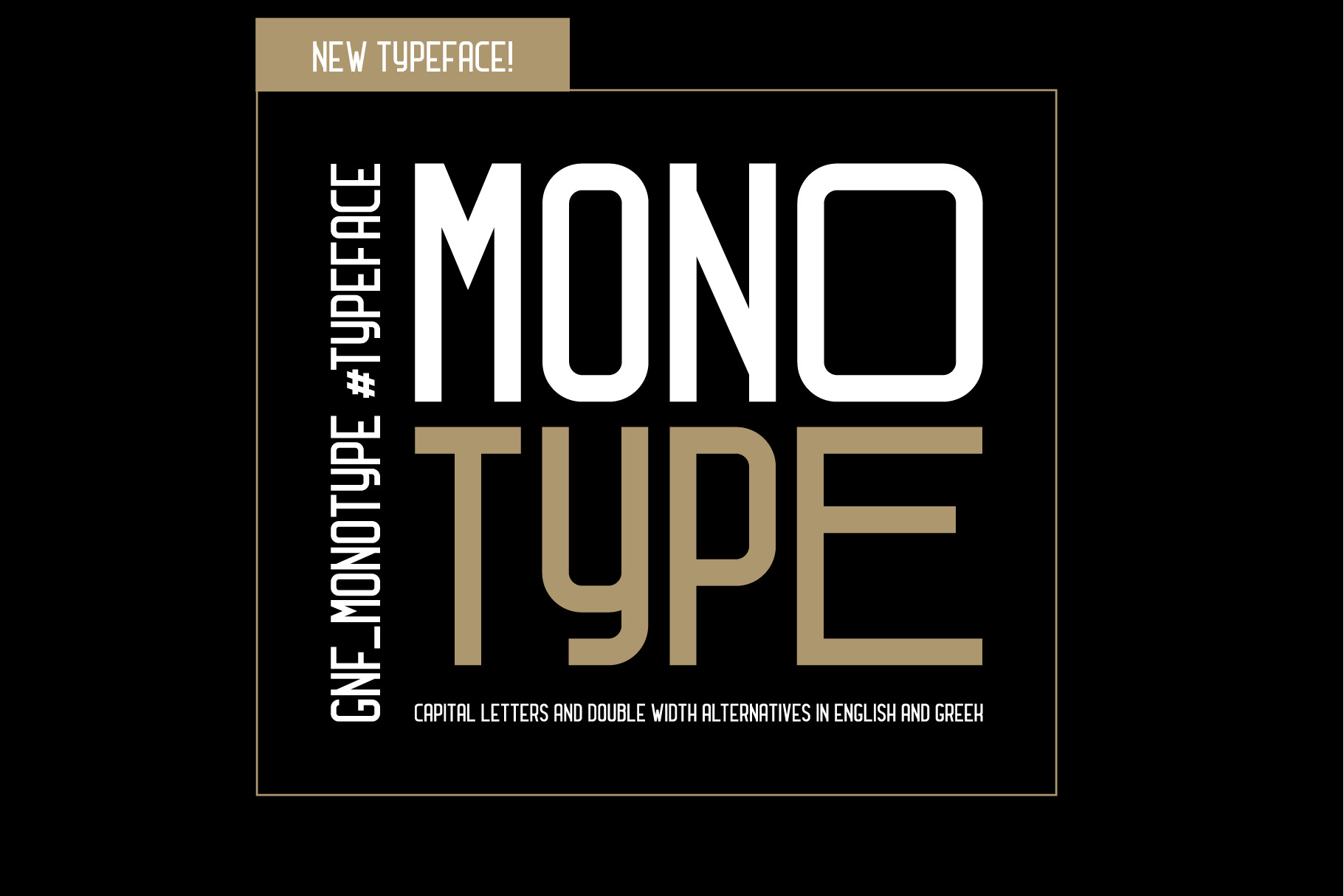
GNF_MONOTYPE TYPEFACE
A modern Display typeface with capital letters with Greek and English language support, numbers, double width letters and some special characters and alternates.